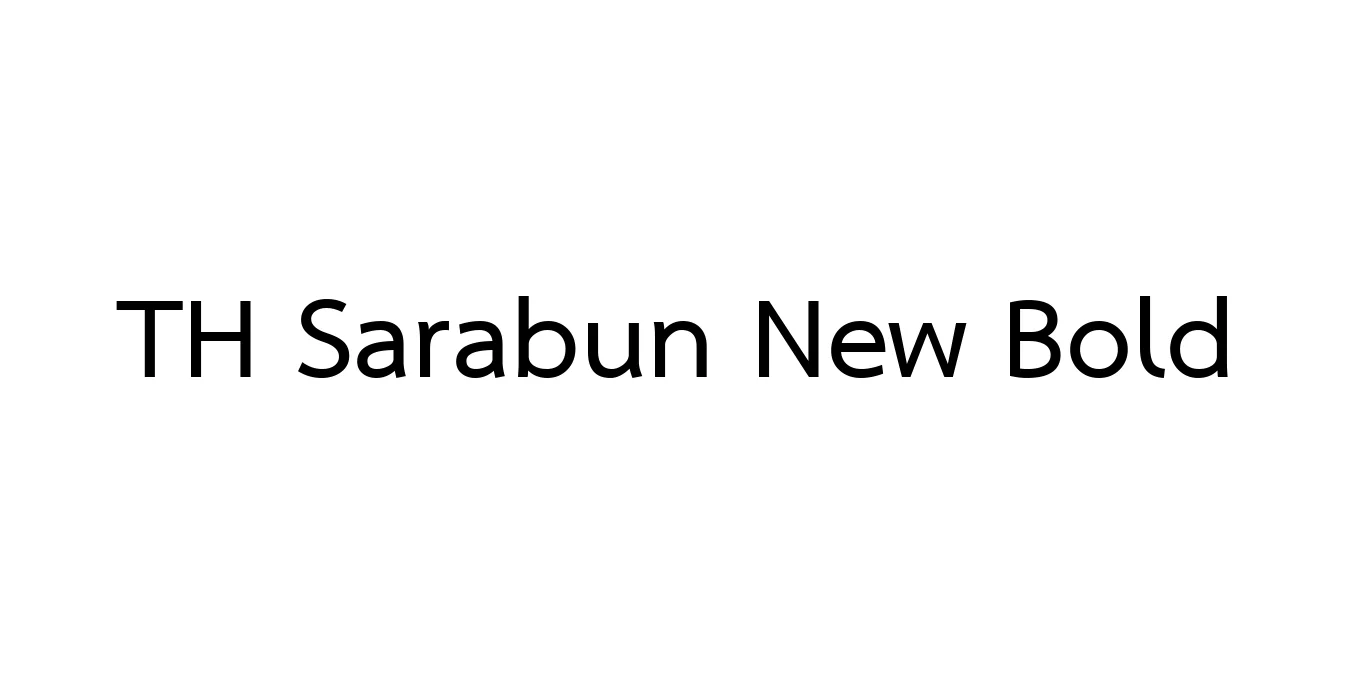
TH Sarabun New Bold
Designed by Suppasit Gidprasert
| Font Name | TH Sarabun New |
| Category | Sans-serif / Thai |
| Designer | Suppasit Gidprasert |
TH Sarabun New Bold is a modernized iteration of the TH Sarabun PSK font, which was commissioned by the Software Industry Promotion Agency (SIPA) and the Department of Intellectual Property as one of the thirteen national fonts of Thailand. This specific variant was refined by Suppasit Gidprasert to address technical rendering issues in modern operating systems while maintaining the classic, formal proportions required for official Thai bureaucracy.
As the bold weight of this family, the font provides enhanced legibility for hierarchical structures in documents. It is characterized by its clean sans-serif loops and a balanced stroke weight that ensures clarity in both print and digital mediums. It has since become the standard for professional communication, academic research, and government correspondence throughout Thailand.
TH Sarabun New Bold Best Uses
Standardized font for Thai government and legal paperwork.
Ideal for titles and emphasized text in Thai university theses.
Highly readable bold text for localized Thai website interfaces.
Used for professional reports and official corporate identity within Thailand.